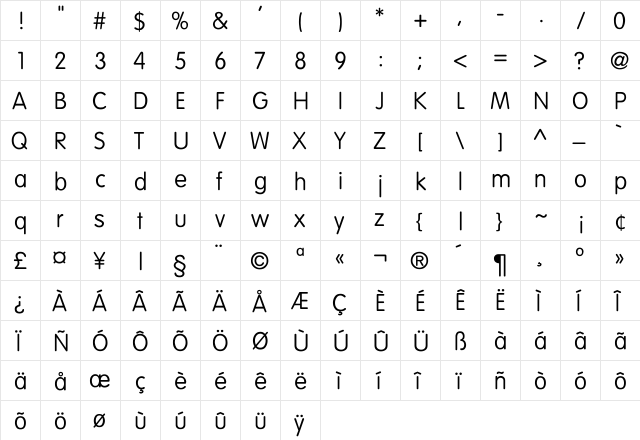
Vogue-Normal Regular
Design Context for Vogue-Normal Typeface
Vogue-Normal is a composed and adaptable typeface that performs quietly and consistently across a wide range of design contexts.
Pro Tip: Use Vogue-Normal in both headline and body roles to test its range before committing to a single application.